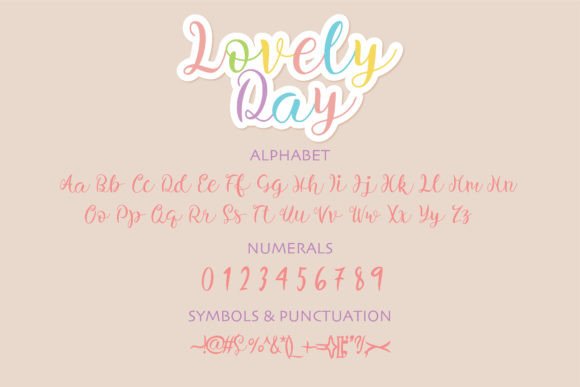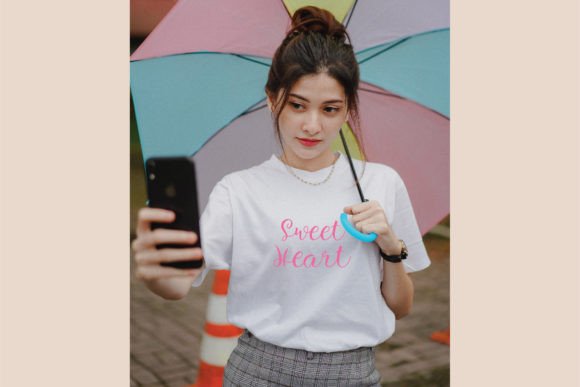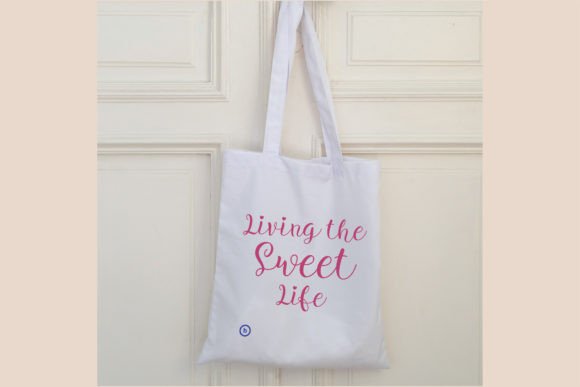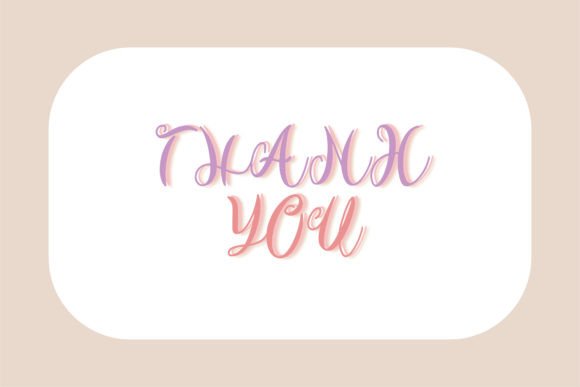
Introduction to Lovely Day Font
Lovely Day is a script handwritten font.
Its natural and unique style makes it incredibly fitting to a large pool of designs Have fun with this beautiful font and explore its endless variations.